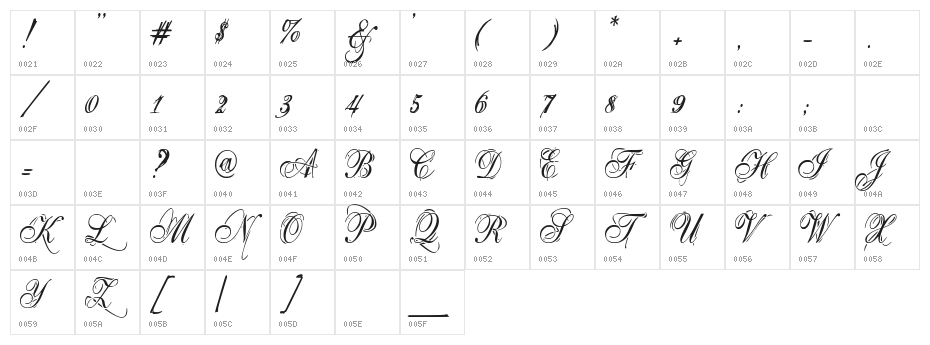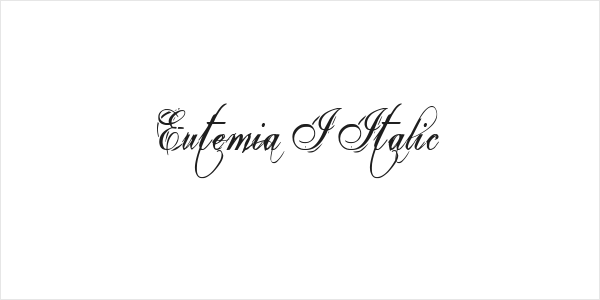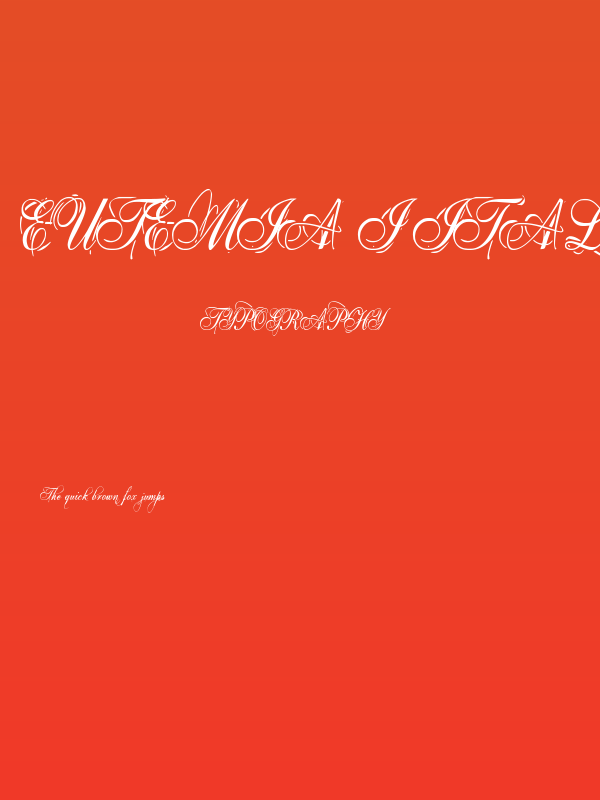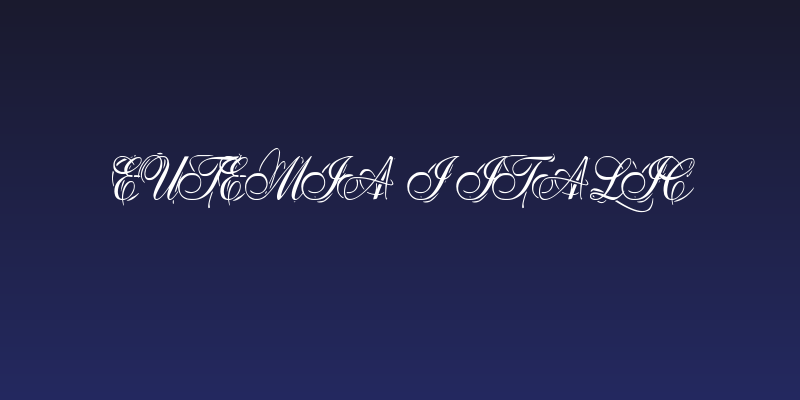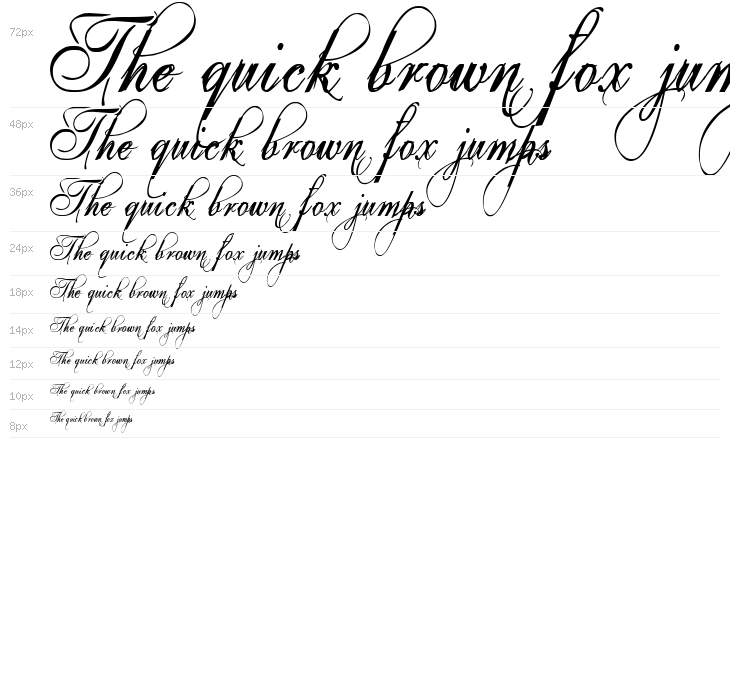
Eutemia I Italic Font
Eutemia I Italic Description
This elegant script font exudes sophistication and grace, characterized by its flowing, cursive style with intricate swashes and flourishes. The uppercase letters are particularly ornate, featuring elaborate loops and extensions that give the font a luxurious feel. The lowercase letters maintain a consistent flow, enhancing readability while retaining the decorative nature of the script. Numbers and special characters are designed with the same attention to detail, ensuring a cohesive look across all elements. The font's italic style adds a dynamic and fluid touch, making it ideal for formal invitations, branding, and high-end product packaging.
| Overall Style | Elegant, Decorative |
| Use Case | Headlines, Invitations, Logos |
| Proposed Projects | Ideal for wedding invitations, luxury branding, elegant logos, and high-end packaging. |